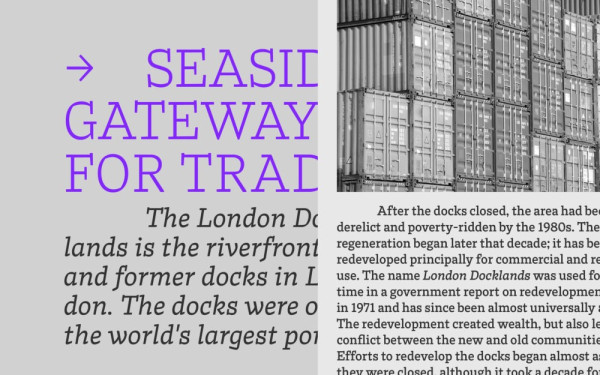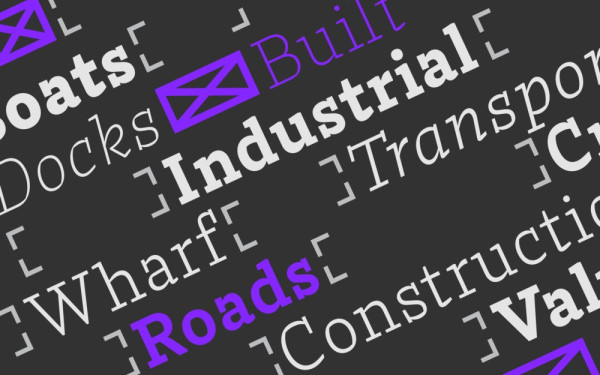
Dockland Font Family
Dockland Font Family, is a low contrast slab serif typeface crafted in a transitional style. Characterised by prominent vertical serifs and angular counterforms, Dockland Font deliberately adds some calligraphic flavour to the often mechanical genre of slab serifs.
Inspired by blackletter elements and lithographic prints from the 1890s, it is a solid text face with modern proportions, clearly defined shapes and angular physique. Whilst the heavy weights are physically strong, the lighter weights are precise and airy. The result is a smart slab serif with 7 weights across uprights and italics.
Combining hard graft with confidence in business and digital expertise, Dockland Font can brand food trucks and craft beverages; maritime sports teams and tech start ups; and confident companies and institutions. A strong workhorse for text, it can be just the right voice for abstract businesses or publications within a cultural and academic context.
Referencing the London Docklands and their development, the typeface touches heritage, labour, industrialisation, and adds a modern polish without losing charm.
It is shipped with a weight range from a delicate Extra Light to a strong ExtraBold. The glyph set covers a broad Latin language support, fractions, old style and decimal figures, as well as arrows.